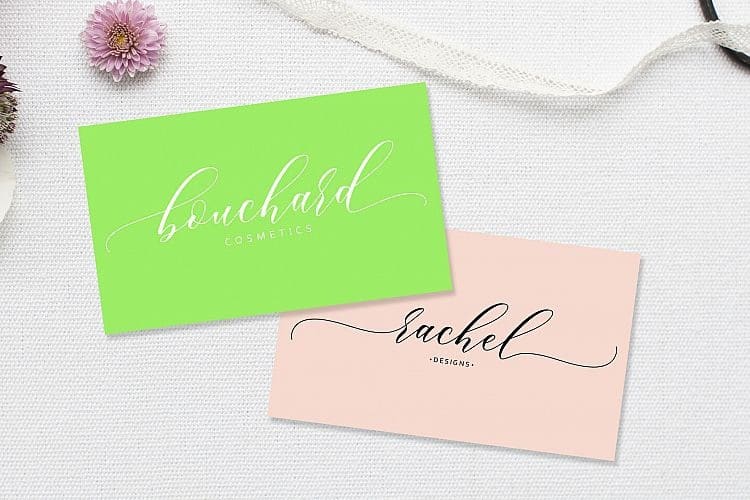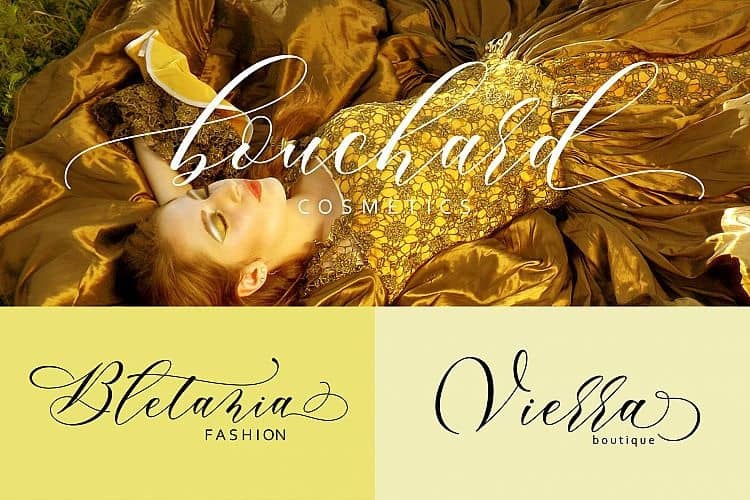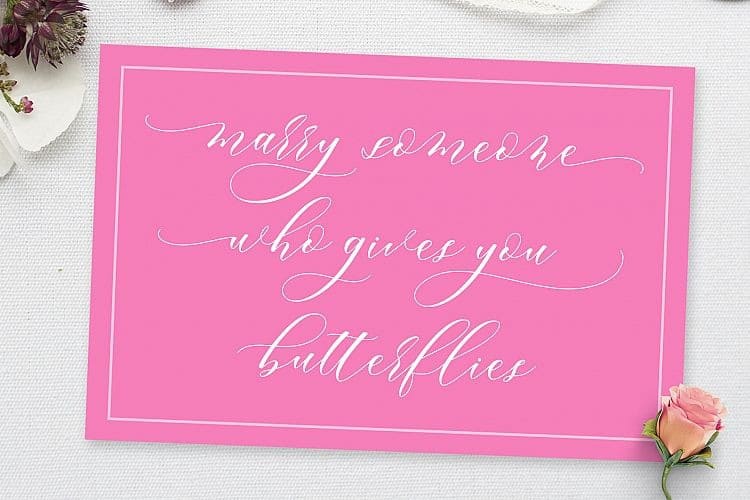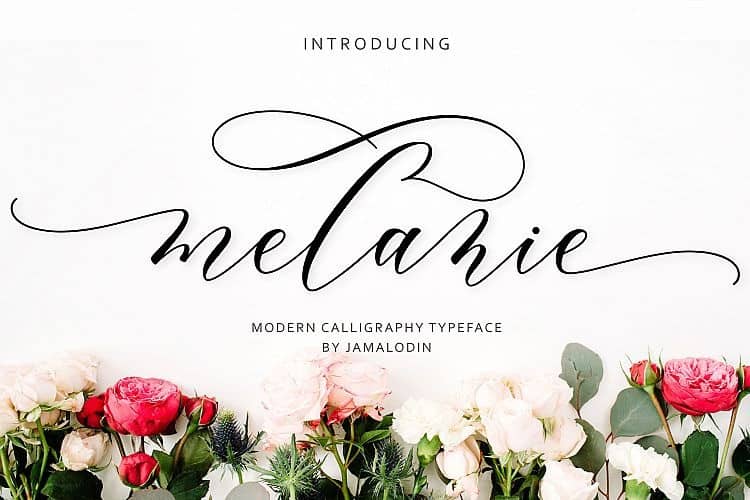
Melanie Calligraphy Font
Melanie Calligraphy Font is a modern script with handwriting, decorative characters, designed to perfectly combine informal, romantic, sassy, sweet scripts. With modern script style this font will perfect for many different project, example: invitations, greeting cards, posters, name card, quotes, blog header, branding, logo, fashion, apparel, letter, stationery and more !
Melanie Calligraphy Font come with 500+ glyphs. The alternative characters were divided into several Open Type features such as Swash, Stylistic Sets, Stylistic Alternates, Contextual Alternates. The Open Type features can be accessed by using Open Type savvy programs such as Adobe Illustrator, Adobe InDesign, Adobe Photoshop Corel Draw X version, And Microsoft Word. And this Font has given PUA unicode (specially coded fonts). so that all the alternate characters can easily be accessed in full by a craftsman or designer.